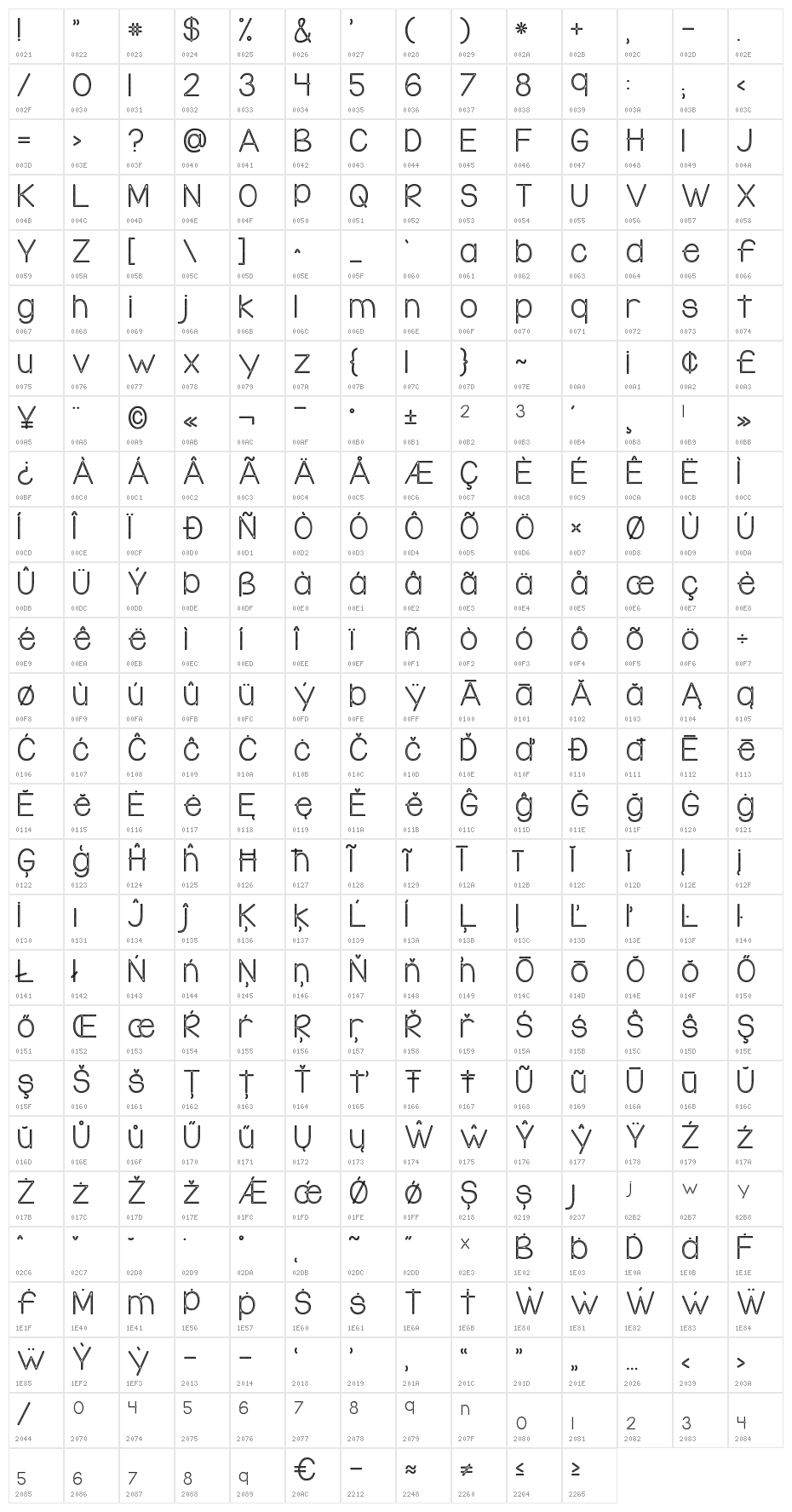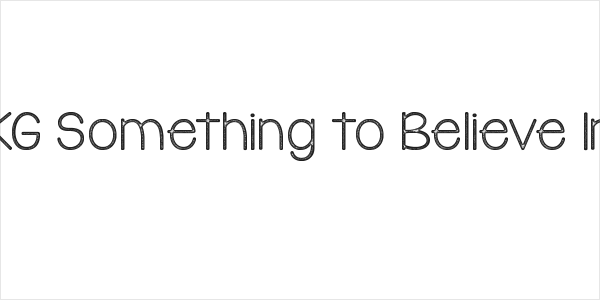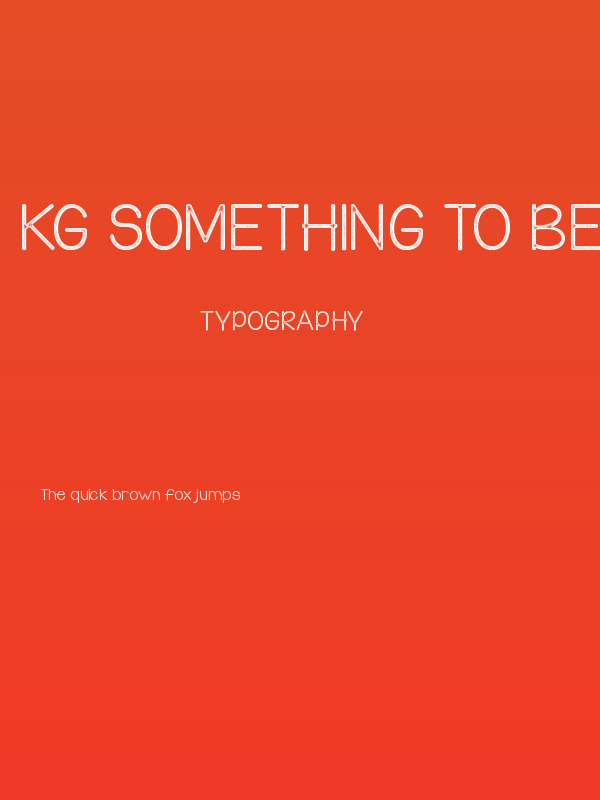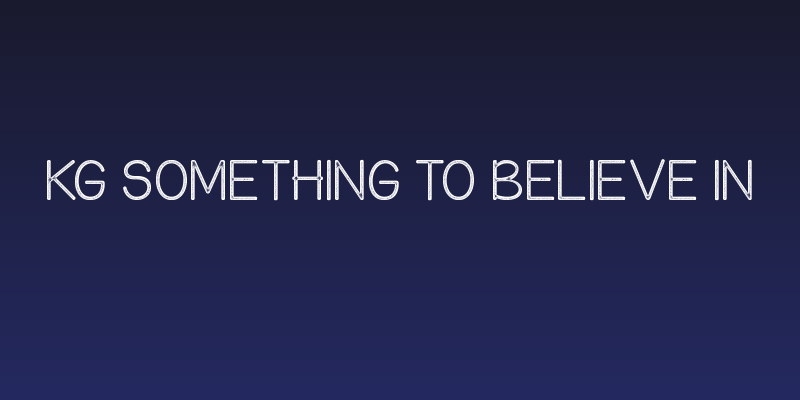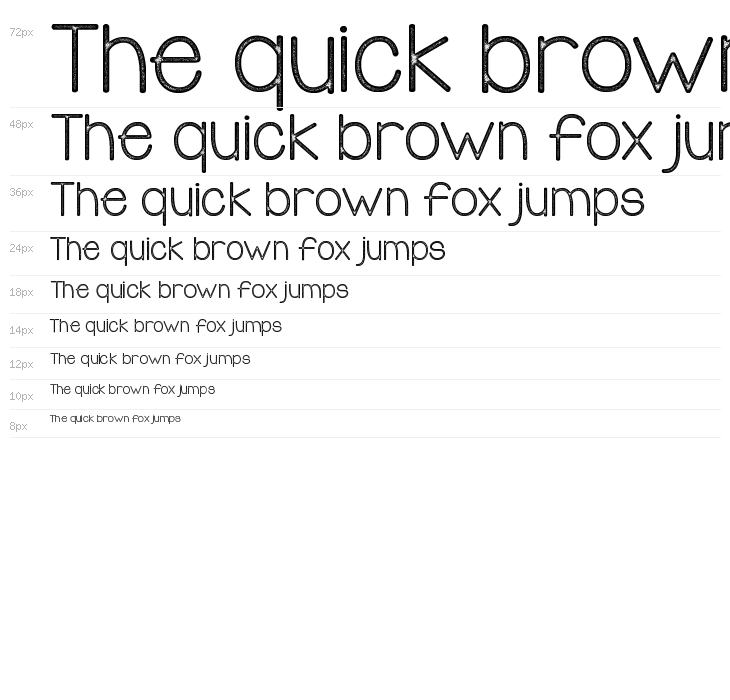
KG Something to Believe In Font
KG Something to Believe In Description
This font features a playful and decorative style, characterized by its dotted texture that adds a unique visual interest. The letters are uppercase and lowercase, with numerals and a variety of special characters. The design is clean and modern, with a slight whimsical touch due to the dotted pattern. The strokes are consistent in width, providing a uniform appearance across all characters. The font maintains a balanced proportion, making it suitable for various design applications where a touch of creativity is desired.
| Proposed Projects | Ideal for children's book covers, playful branding, greeting cards, and creative posters. |